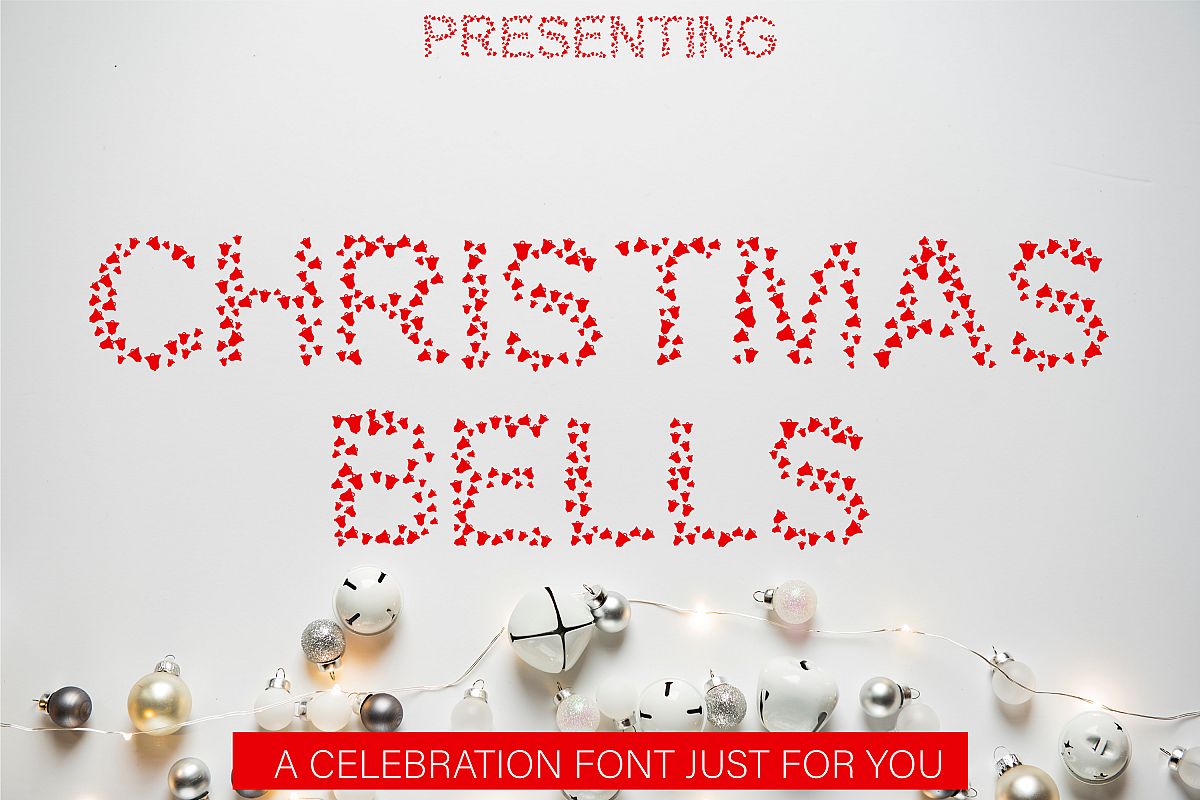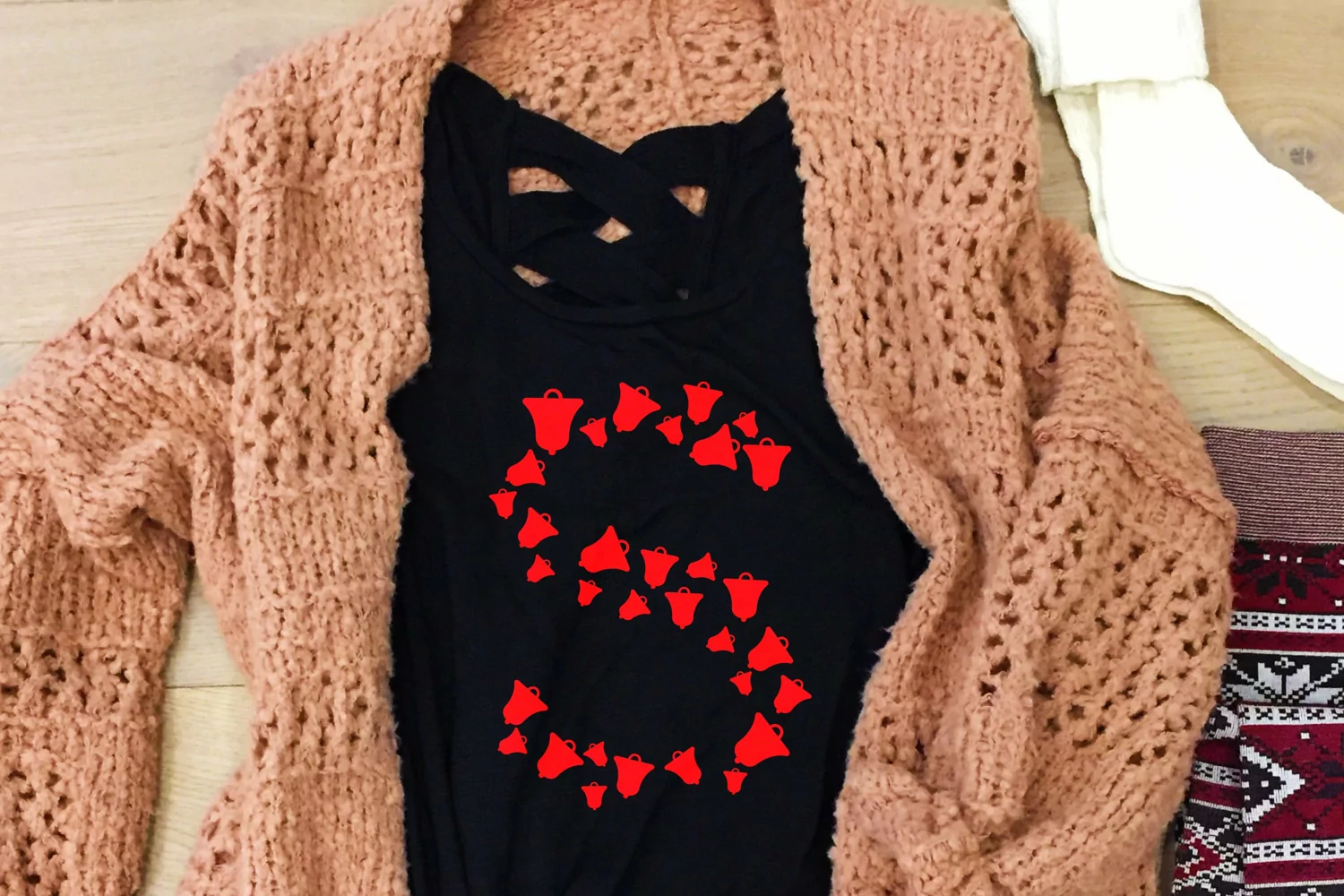
Christmas Bells Font - A Fun & Cute Christmas Font
Presenting Cute font for you. This Special Christmas day font can be used in tons of projects specially in child and new born projects. You can use it for craft purpose and this will looks great on shirts, printing material and other stuff.
2- UPPER Case only Letters A to Z and 0-9 Numbers
3- Super Cute and Creative